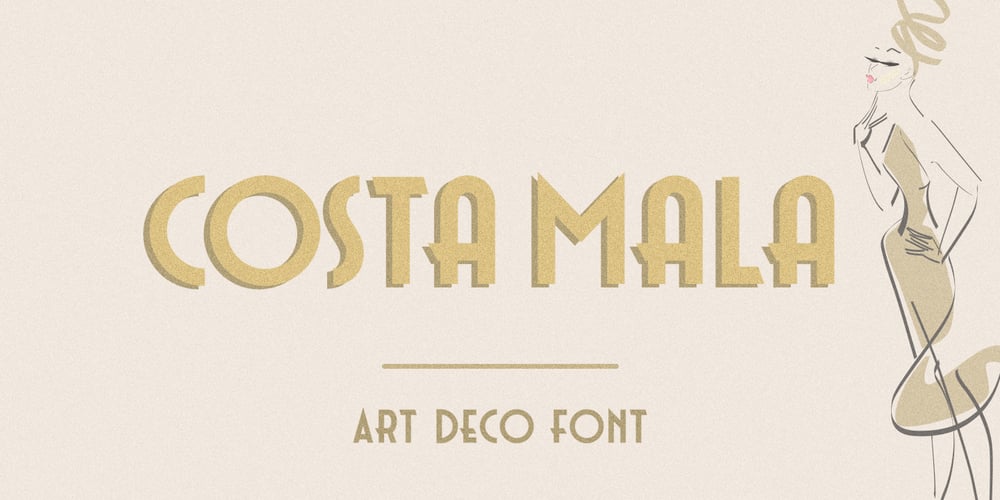
Costa Mala Font Family was designed by Pavel Larin and published by Larin Type Co. Costa Mala contains 2 styles and family package options. Costa Mala feels playfully nostalgic and delivers an incredible vintage aesthetic.this font will look outstanding in both formal and non-formal designs. It will add charm and create a unique atmosphere in your design project. This font includes two styles: regular and outline, and also has alternatives that you can use to play with font dynamics. This font is easy to use and has OpenType features.